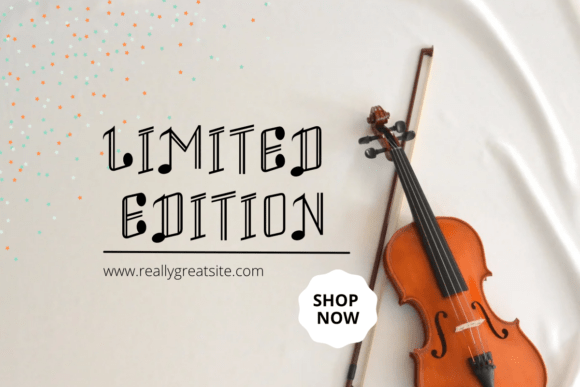
Melody Script Font
Melody Script is a creative and unique handwritten font inspired by the rhythm and flow of music. With its elegant letterforms featuring musical note details, this font is perfect for music-themed designs, concert posters, invitations, branding, and artistic projects. Whether you’re composing a visual masterpiece or designing for a musician, Melody Script will add a harmonious and stylish touch.